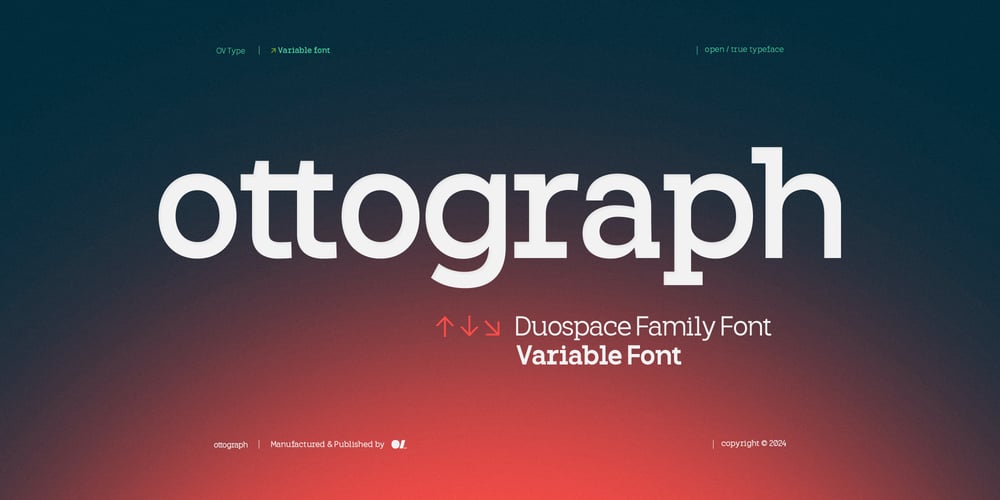
OV Ottograph Duospace Font Family was designed by Arif Rijal and published by OV Type. OV Ottograph Duospace contains 8 styles and family package options. Hey there! We know finding the perfect font can be a real challenge. That’s why we’re excited to introduce OV Ottograph Duospace Font Family. Unlike the usual monospace fonts, OV Ottograph has a cool duospace design that brings a fresh, modern vibe to any project.Whether you’re working on web design, branding, or editorial layouts, this font has you covered. Plus, you’ll get future updates to keep your design toolkit up-to-date. Ready to upgrade your design game? Give OV Ottograph a try!